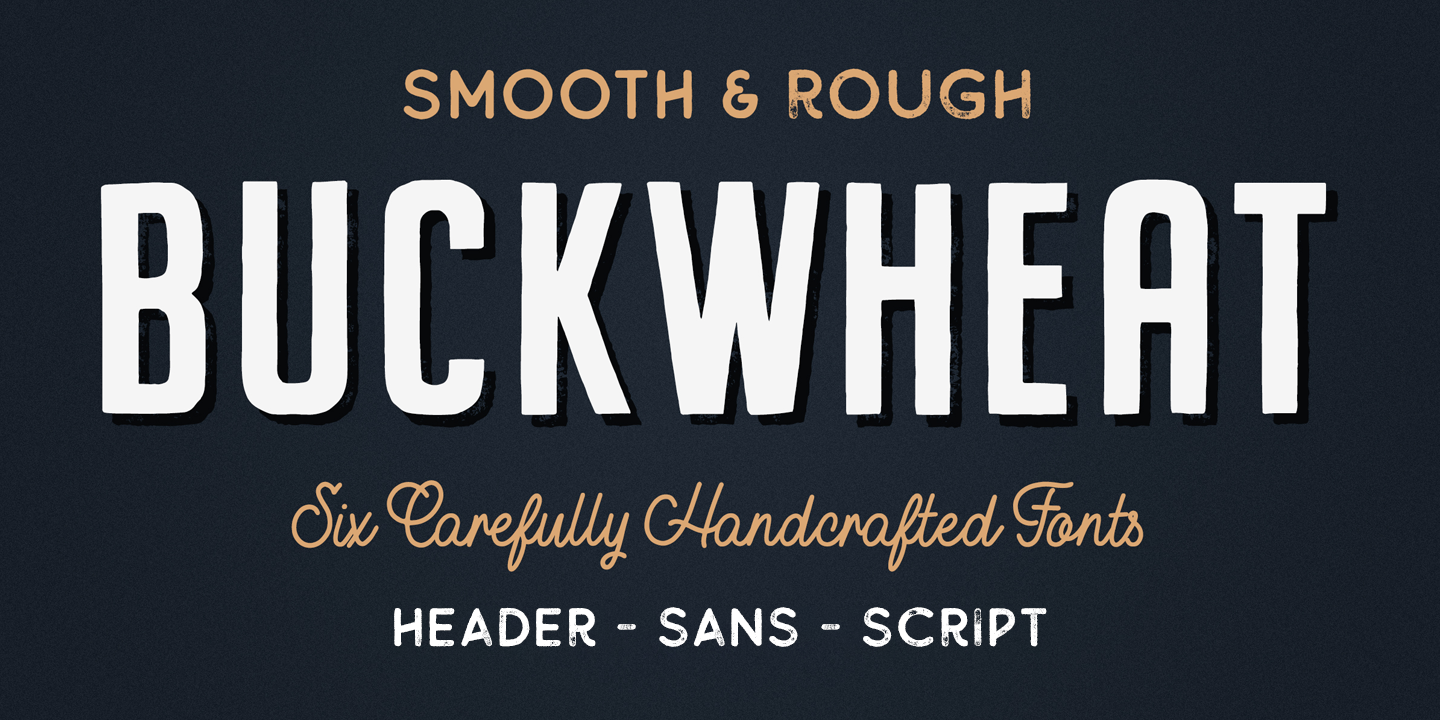
The Buckwheat TC Font is a delightful choice for projects that aim to evoke a warm, organic, and artisanal aesthetic with a touch of modern craftsmanship. It’s perfectly suited for boutique branding (think coffee shops, bakeries, handmade goods), farm-to-table restaurant menus, eco-friendly product packaging, social media graphics with a friendly, rustic vibe, lifestyle blogs, and any design that benefits from a genuine, textured, and approachable typeface. Its unique character makes it ideal for conveying a sense of authenticity, simplicity, and natural charm.
What makes Buckwheat TC Font so exciting is its inherent ability to add a tactile, hand-crafted feel to your text. It often features subtle imperfections, brush-like textures, or a slightly weathered appearance, giving your words an immediate sense of warmth and bespoke quality. This font isn't just about reading; it's about experiencing the text as if it were lovingly created by hand, making your designs feel both unique and deeply engaging. It excels at adding an air of rustic elegance and creative flair, ensuring your messages stand out with a truly distinguished and memorable character. The "TC" in its name might suggest "Texture Coarse" or a similar textural treatment, enhancing its organic feel.
The Buckwheat TC Font family typically focuses on variations that enhance its handcrafted and natural aesthetic. You will generally find a strong regular style that embodies its core organic appeal. Given its specific design purpose, extensive weight variations are less common, but some versions might offer subtle stylistic alternates, ligatures, or even different textural treatments (e.g., cleaner or rougher versions) to provide more expressive flourishes and further enhance its bespoke feel. The emphasis is on providing a consistent yet visually rich identity that resonates with its artisanal and natural inspirations.
Whether you're designing a cozy café menu, crafting a unique brand identity for a small batch producer, or creating visually stunning marketing materials for an eco-conscious brand, the Buckwheat TC Font Free Download offers an indispensable tool. Its artistic appeal and charming character make it a premier choice for any project that requires a typeface of exceptional warmth, authenticity, and distinctive natural beauty.